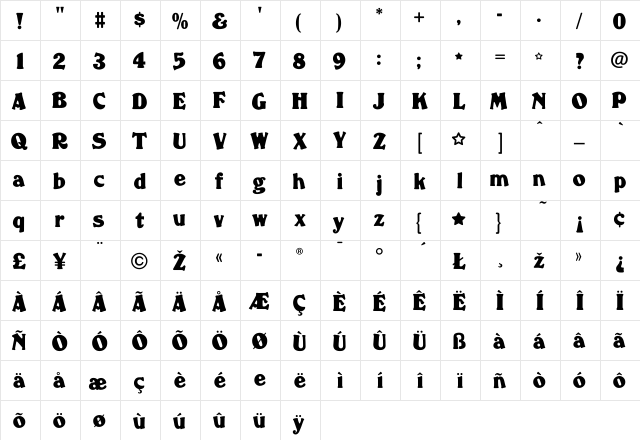
Penzance-Regular Font Preview
Penzance-Regular Regular
Penzance-Regular Font Details
Design Context for Penzance-Regular Typeface
Penzance-Regular takes a measured approach to typography — its balanced proportions and neutral character make it a reliable workhorse for both digital and print work.